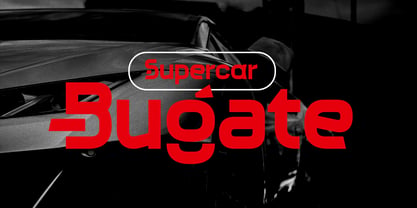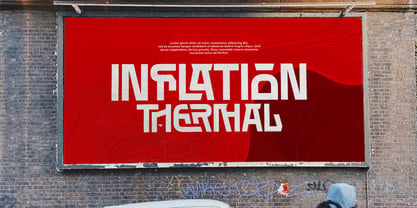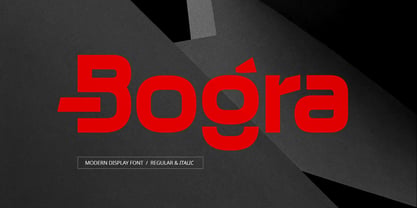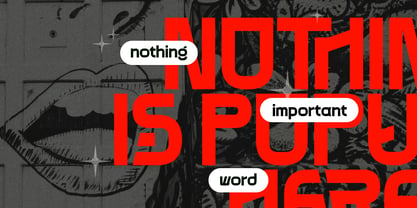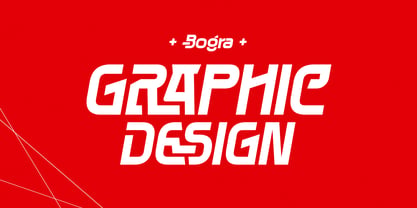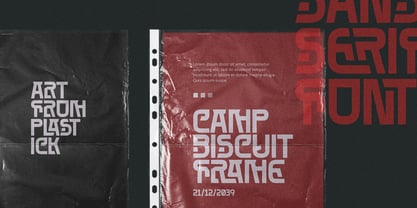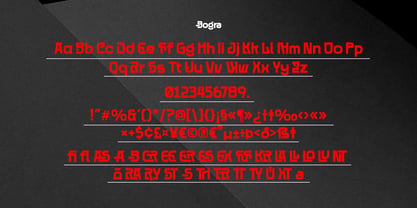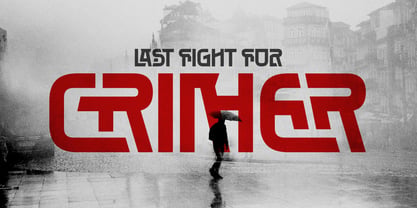
Bogra
The Bogra Font Family was designed by Jarnawi Saja and published by Grontype. Bogra contains 2 styles and family package options. More about this family
Bogra is a bold modern display font with strong, clean shapes and thick strokes. Its geometric style gives a powerful and confident look, making it perfect for eye-catching headlines and branding. The font features unique details and distinctive letterforms that add character and personality. Available in Regular and Italic styles, Bogra is ideal for posters, logos, editorial titles, and other designs that need a strong visual impact. Thankyou for picking up this font, Happy designing.